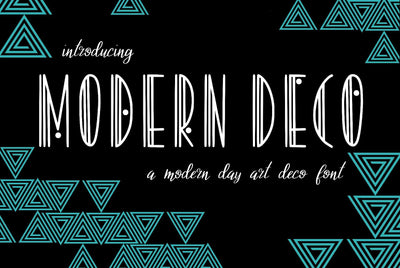
Modern Deco
Modern Deco is perfect to add that 20s feel to your projects. Each letter has 3 lines and the lowercase letters have a gently placed dot. Change it up between Caps and Lowercase to get a unique feel every time!